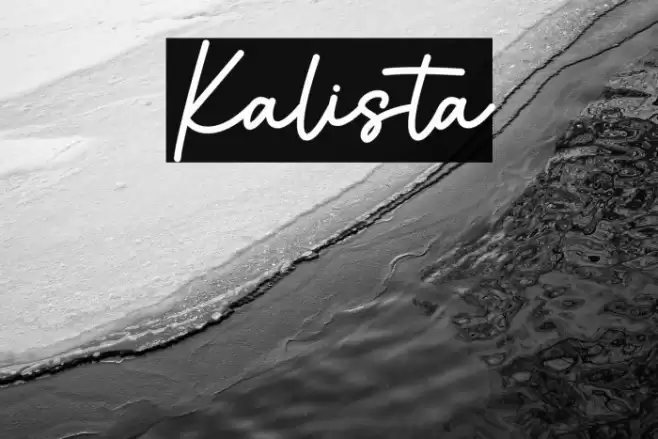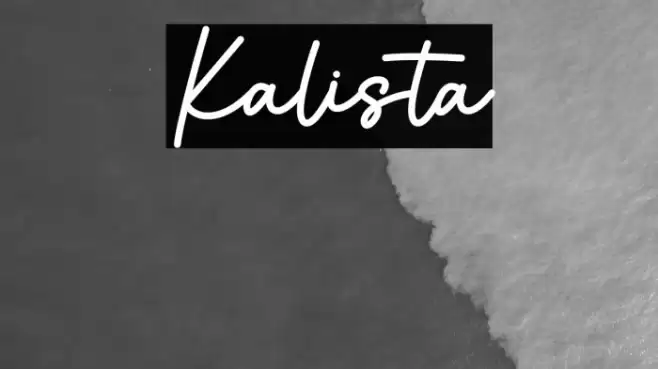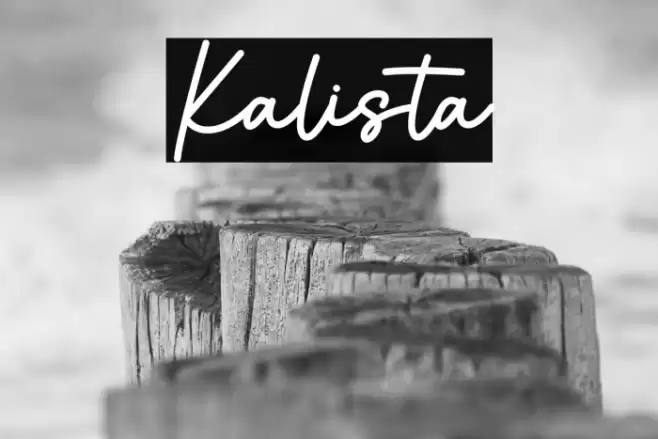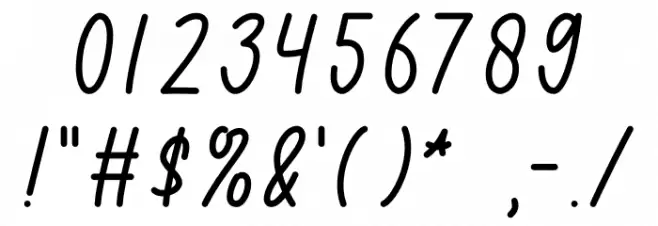
Kalista Font
Kalista Description
This font features a smooth, flowing script style that mimics natural handwriting. The letters are connected, creating a seamless and elegant appearance. The uppercase letters are slightly larger and more pronounced, while the lowercase letters maintain a consistent flow. The numerals and special characters are designed to match the cursive style, adding to the overall cohesive look. The font exudes a casual yet sophisticated vibe, making it suitable for a variety of design projects.
A smooth, flowing script font with a natural handwriting style from Regular fonts.
- Proposed Projects: Ideal for wedding invitations, greeting cards, personal branding, and elegant packaging designs.
- Use Case: Logos, Invitations, Personal Branding